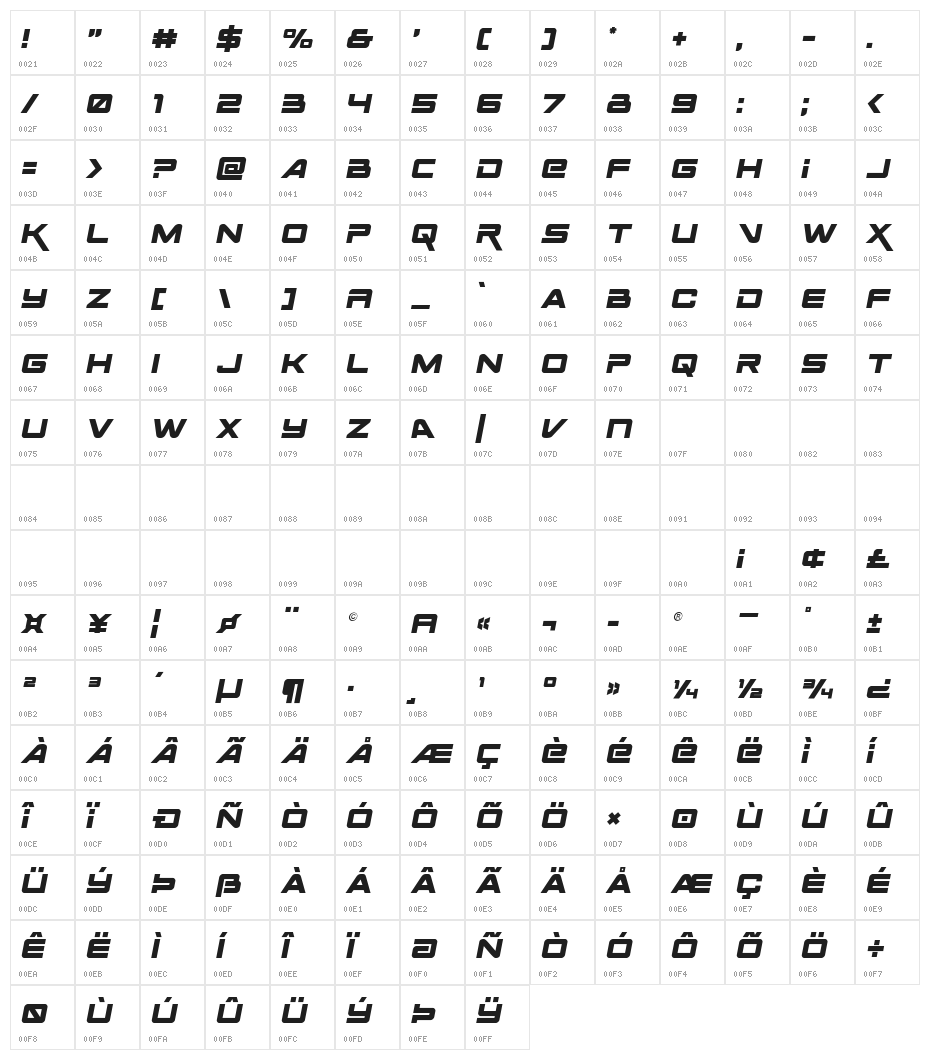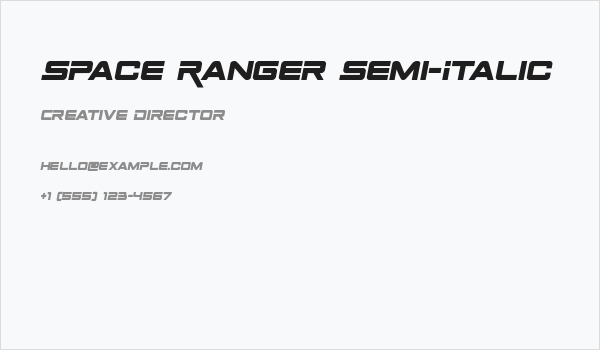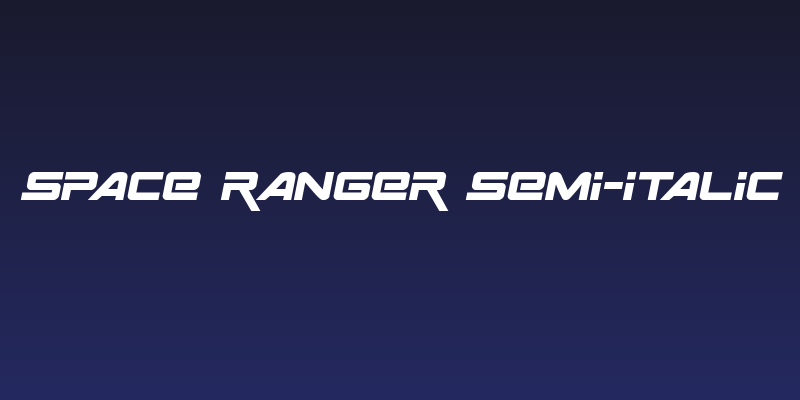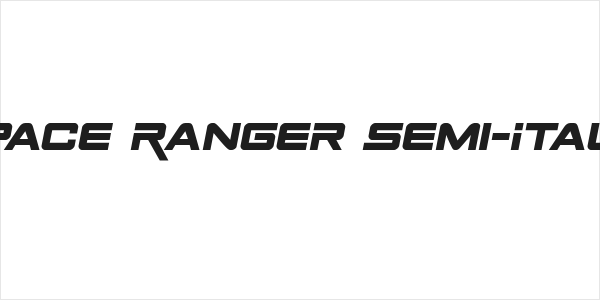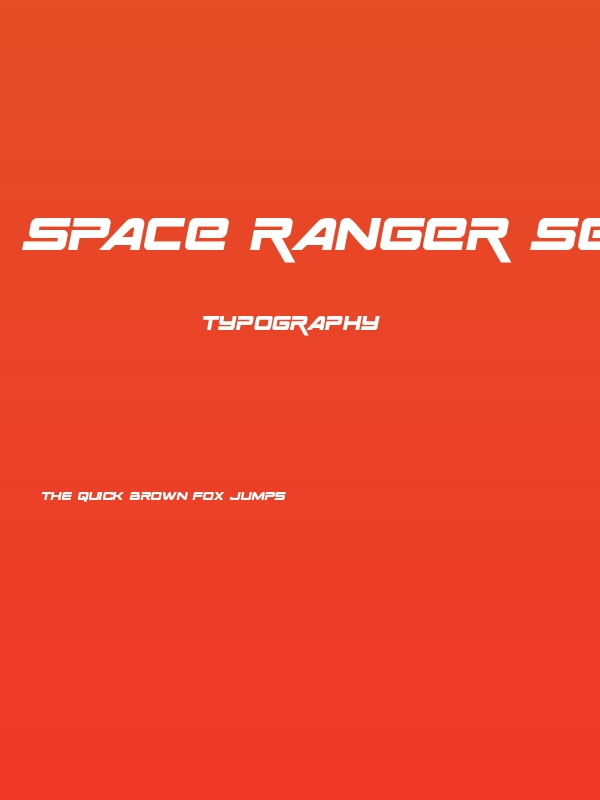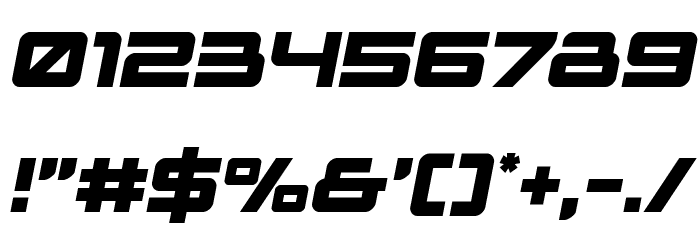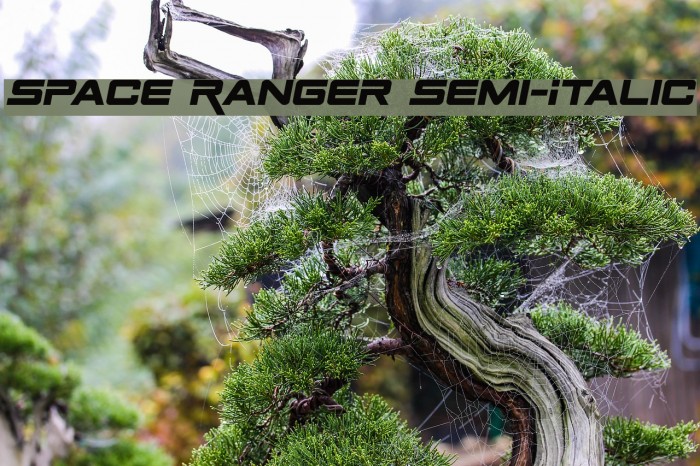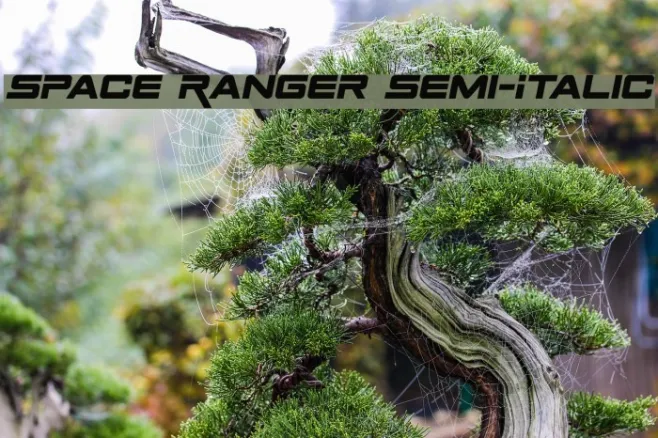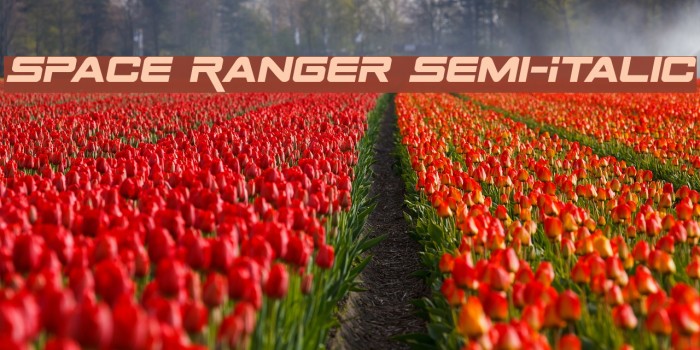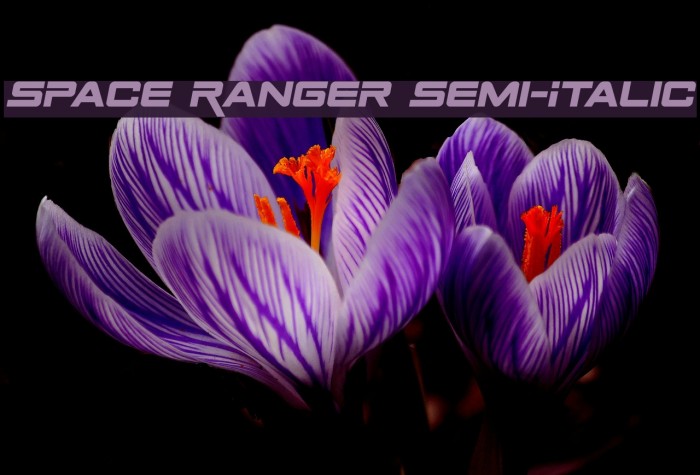
Space Ranger Semi-Italic Font
Space Ranger Semi-Italic Description
This font features a futuristic and dynamic design, characterized by its angular and sleek letterforms. The uppercase and lowercase letters maintain a consistent slant, giving the typeface a sense of motion and speed. The characters are bold and impactful, with sharp edges and a geometric structure that enhances its modern appeal. The numerals and special characters follow the same stylistic approach, ensuring uniformity across all glyphs. This typeface is ideal for projects that require a contemporary and energetic look, such as technology branding, sports team logos, or sci-fi themed designs.
| Proposed Projects | Ideal for technology branding, sports logos, sci-fi themes, and dynamic posters. |